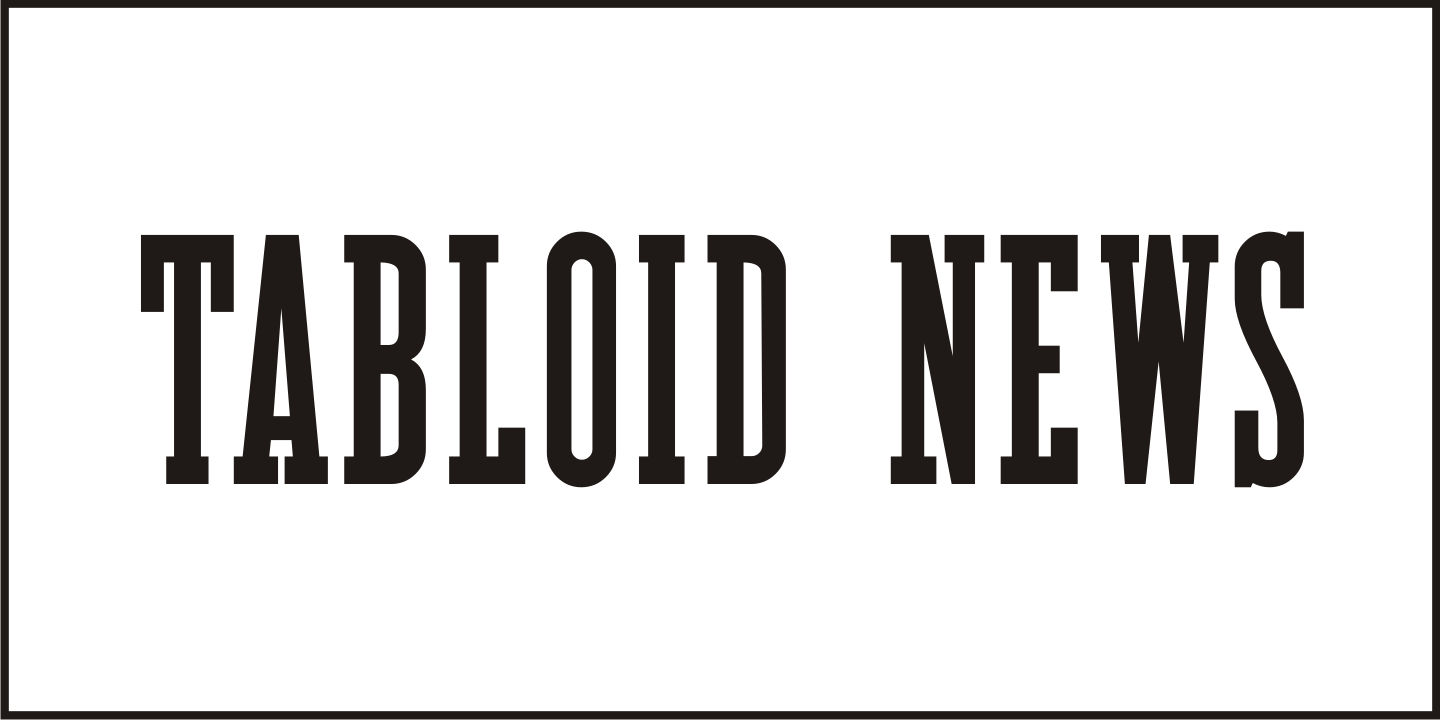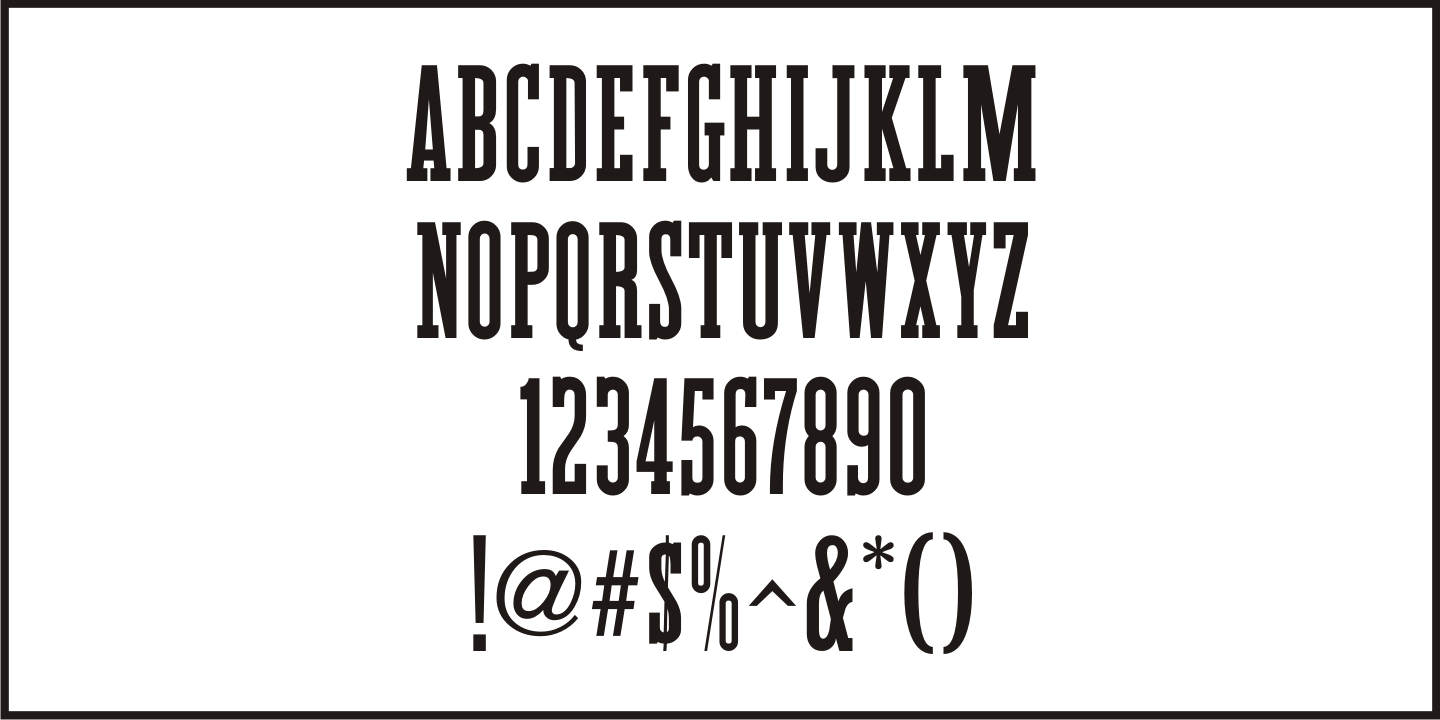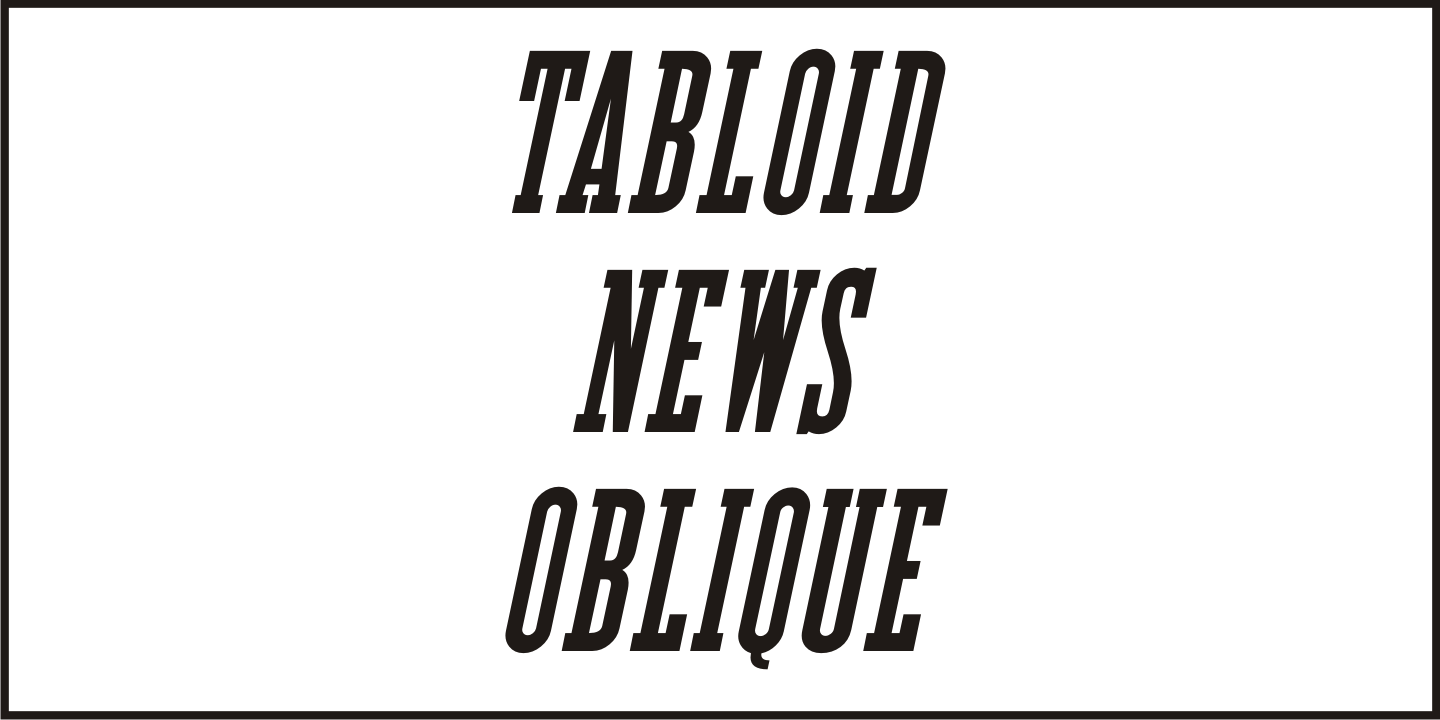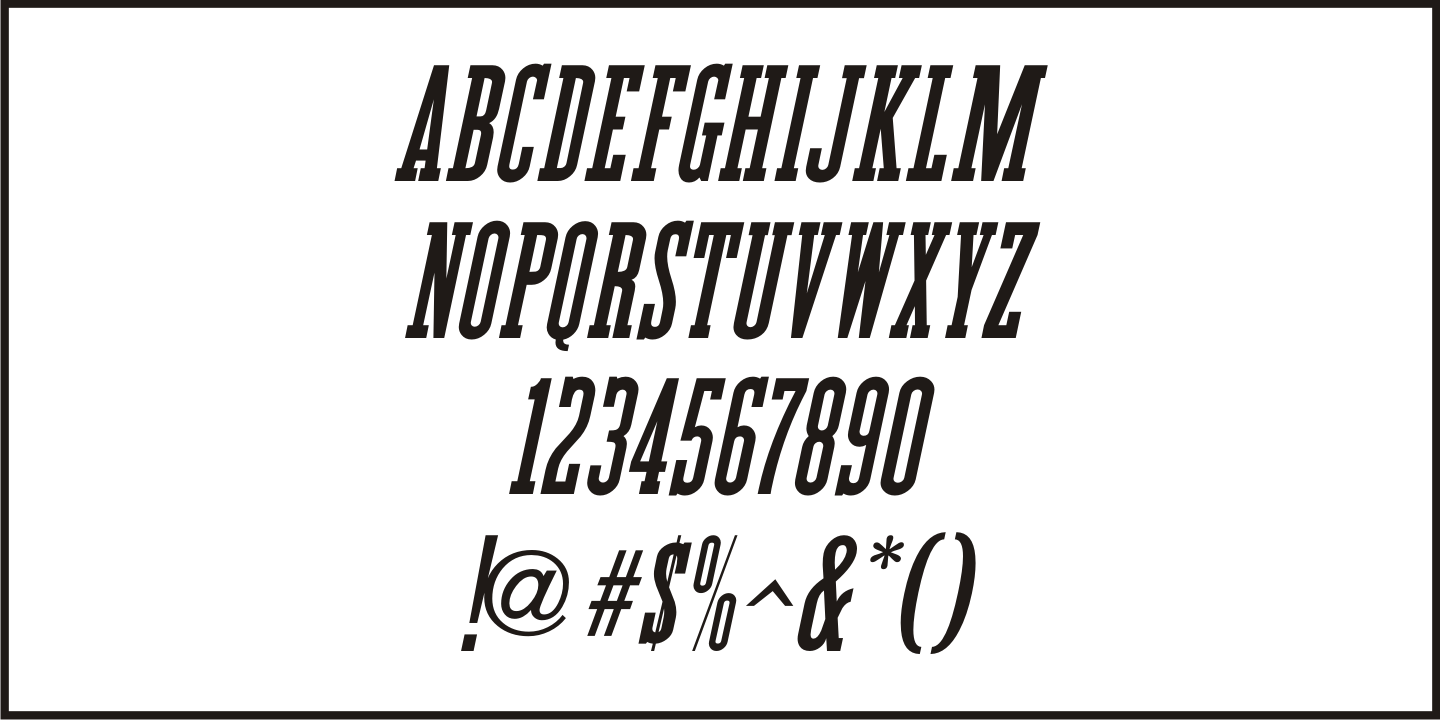
Tabloid News
Sans serif characters re-drawn from old newspaper headlines (and used in the design for Late Breaking News JNL) were given a slab serif treatment in order to create a condensed type face with both grotesk and block influences. The end result is Tabloid News JNL, which is available in both regular and oblique versions.
Tabloid News JNL Regular by Jeff Levine Fonts